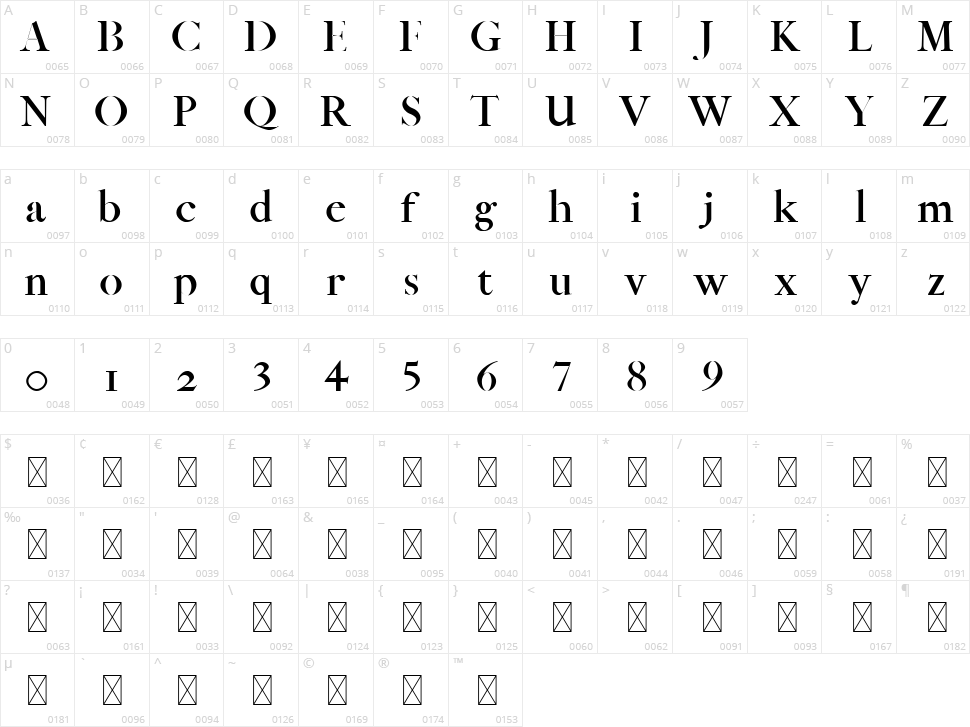
Abed
Note of the author Abed Serif Font is a creative and modern font perfect for use in logo designs, resume, headlines, banners and templates etc.
You can use it to showcase old and vintage touch to your projects.